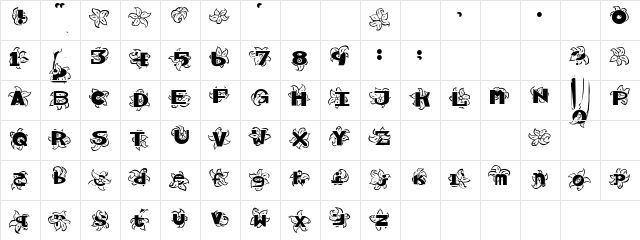
Spring Regular
Design Context for Spring Typeface
Spring is a composed and adaptable typeface that performs quietly and consistently across a wide range of design contexts.